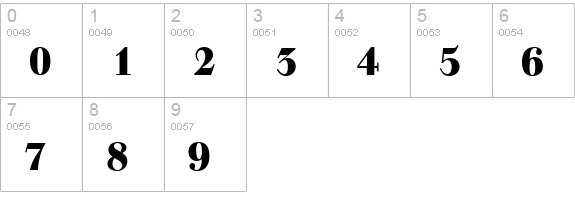
WalbaumDisplay-Heavy-Regular is a heavy, high-impact variant in the WalbaumDisplay typeface family \xE2\x80\x94 well suited to high-impact headlines, posters, and display advertising.
Introducing WalbaumDisplay-Heavy-Regular, a stunning and bold font that exudes elegance and sophistication. With its heavy weight and distinct design, this typeface commands attention and adds a touch of luxury to any project. The clean lines and intricate details of WalbaumDisplay-Heavy-Regular make it a versatile choice for a wide range of design applications, from editorial layouts to branding materials. And the best part? This exquisite font is available for free download at FontsMarket.com. Simply visit the website to access this premium typeface and elevate your projects with its timeless appeal. Don't miss out on the opportunity to enhance your designs with the beauty and grace of WalbaumDisplay-Heavy-Regular. Download it today and let your creativity shine!